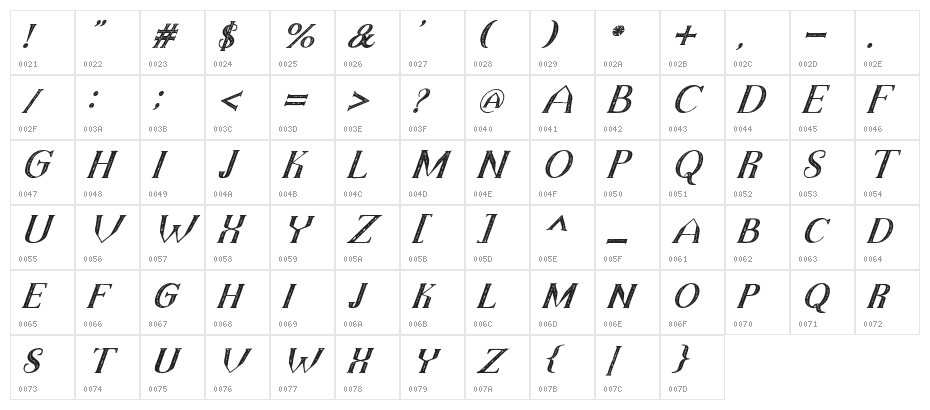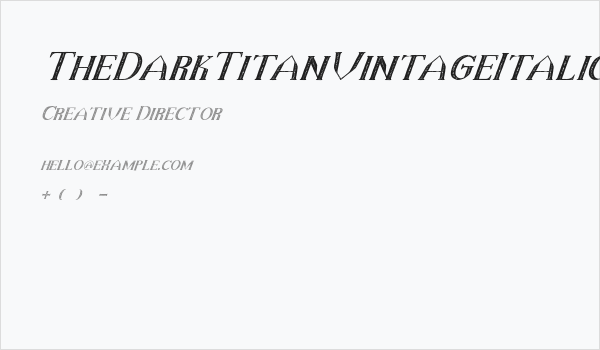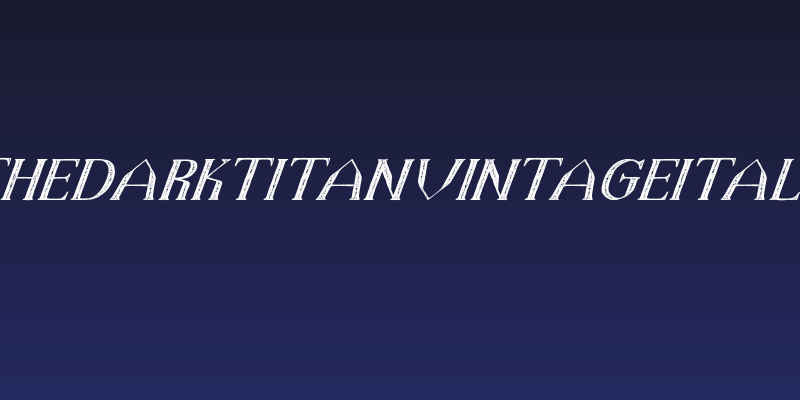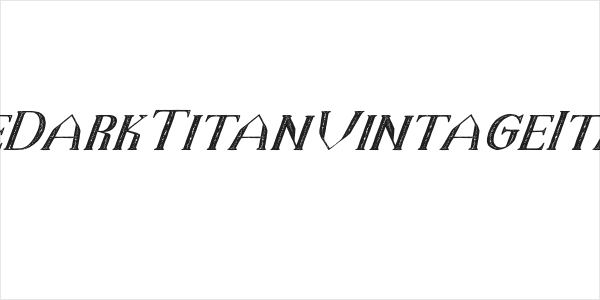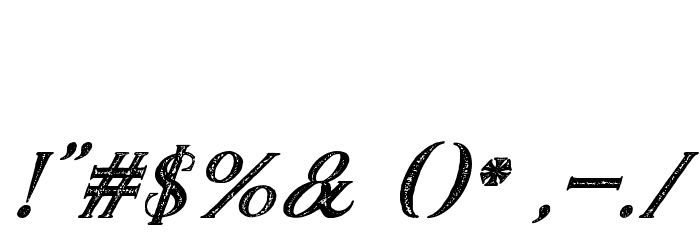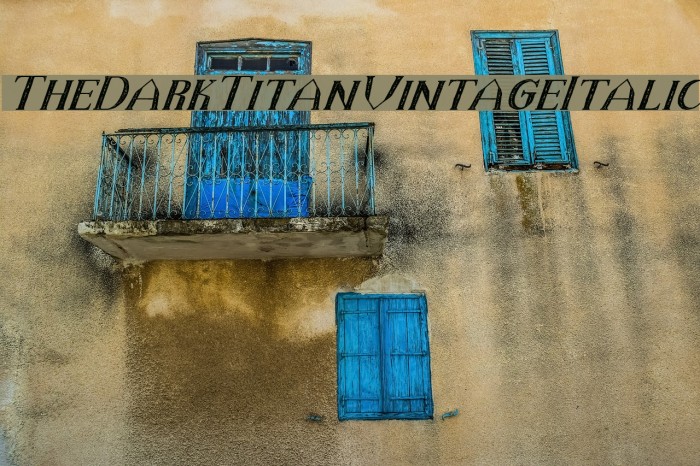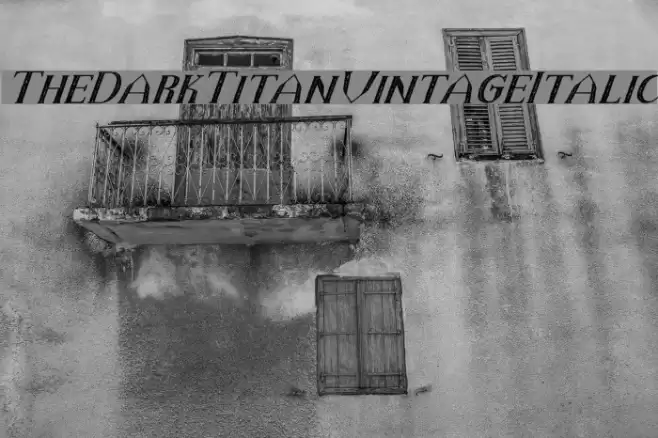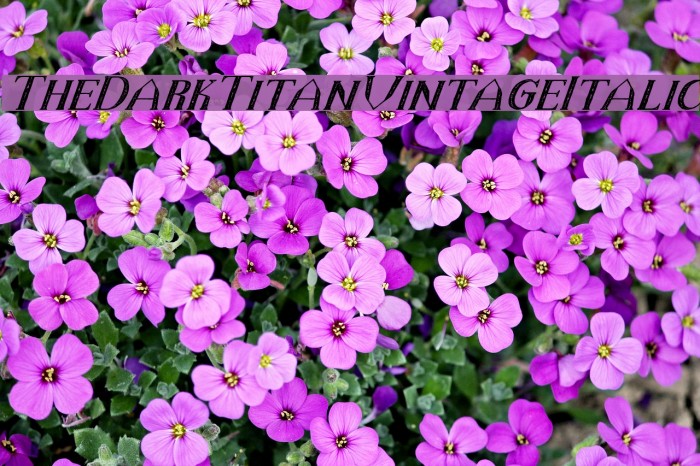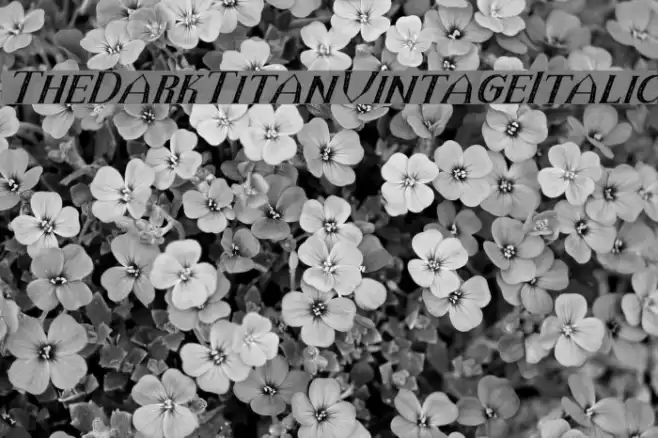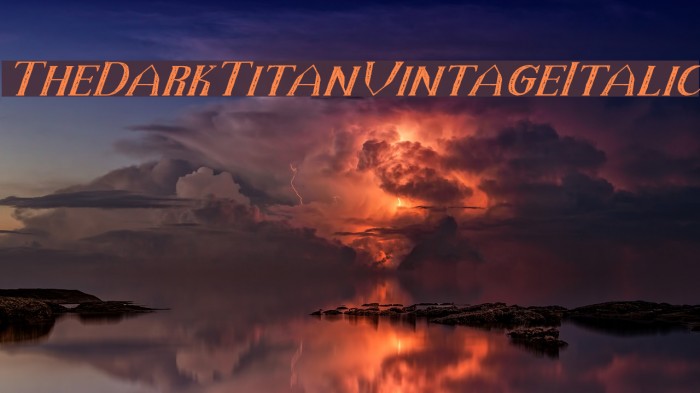
TheDarkTitanVintageItalic Font
TheDarkTitanVintageItalic Description
This font exudes a vintage charm with its italicized, decorative style. The uppercase letters are bold and slightly slanted, giving a sense of movement and elegance. The lowercase letters maintain this slant, complementing the uppercase with a consistent flow. The characters are adorned with subtle, intricate detailing that adds to the vintage aesthetic. The numbers and special characters follow the same stylistic cues, ensuring uniformity across all glyphs. The overall appearance is both classic and artistic, making it suitable for projects that require a touch of nostalgia and sophistication.
| Overall Style | Vintage |
| Proposed Projects | Ideal for vintage-themed posters, branding, invitations, and editorial design. |